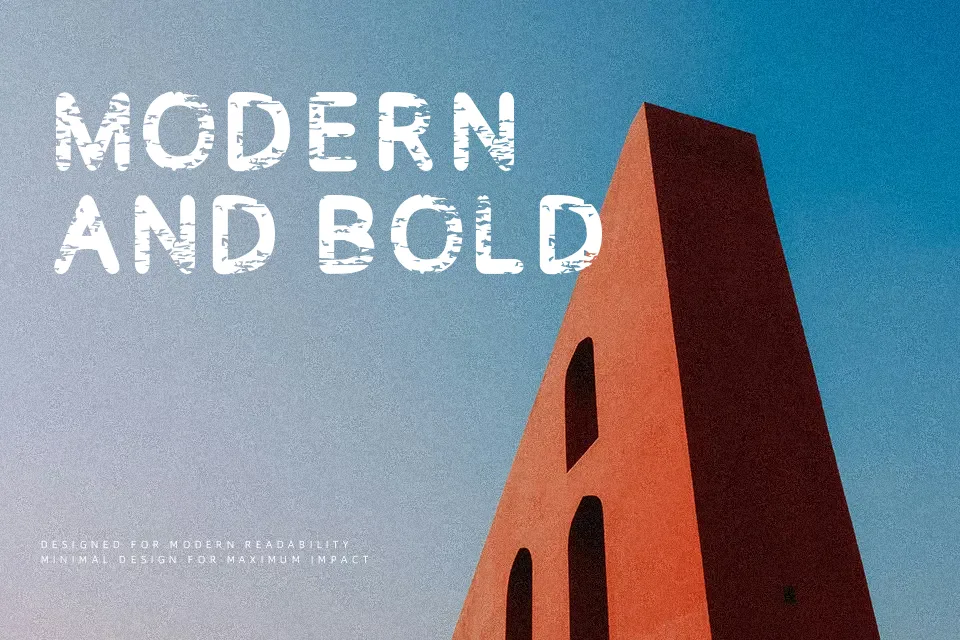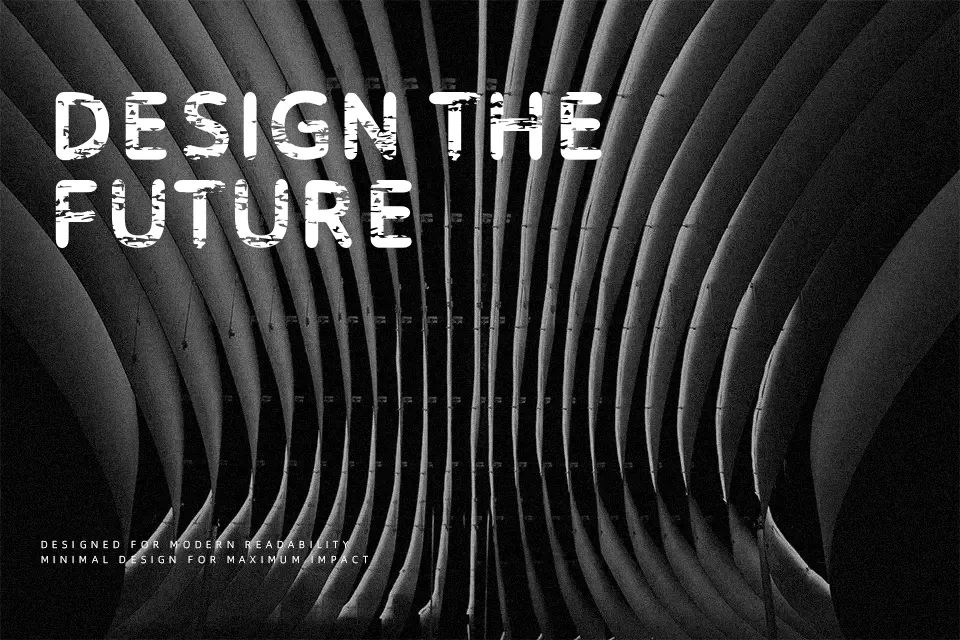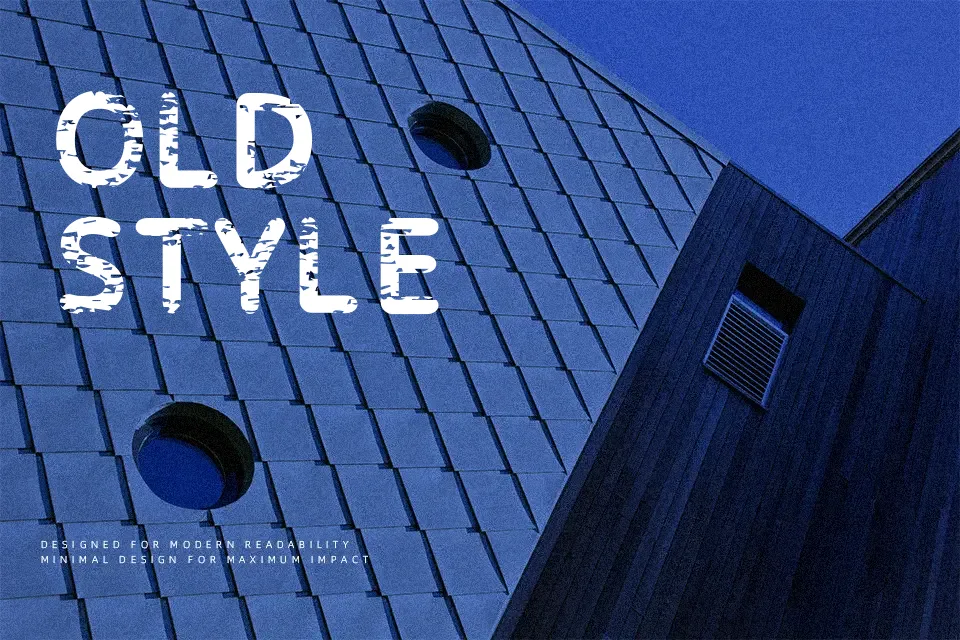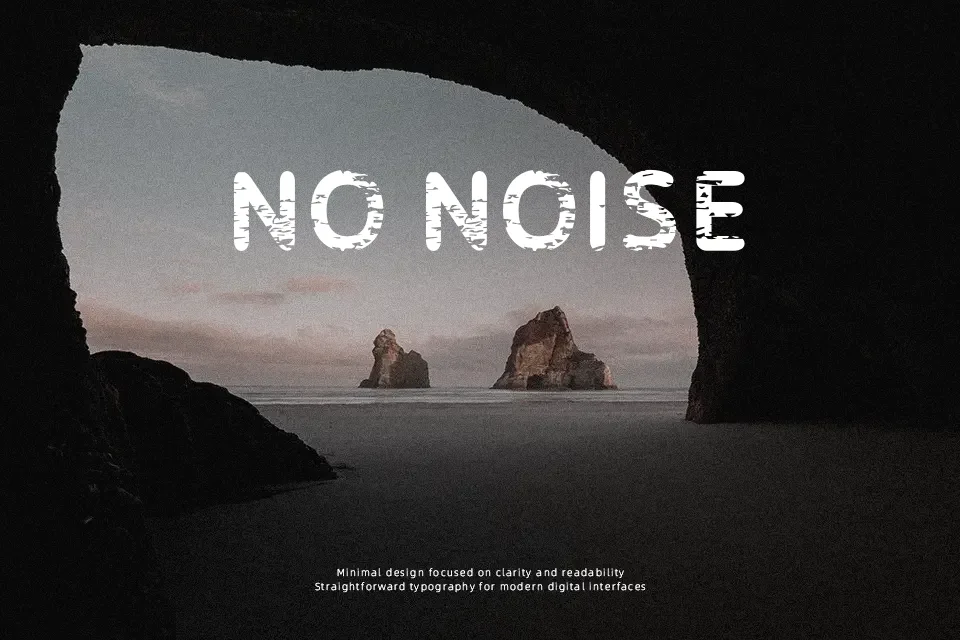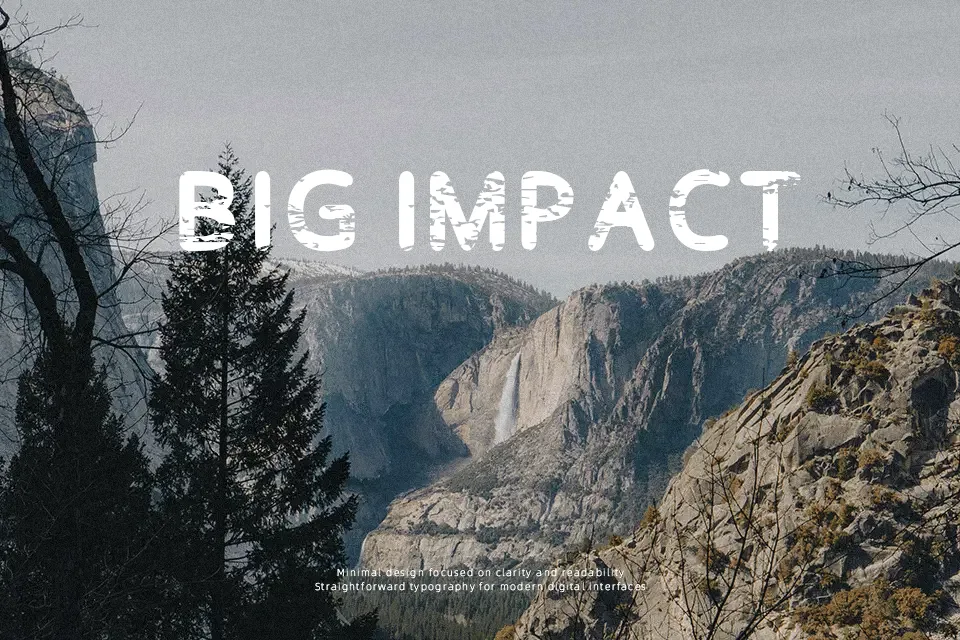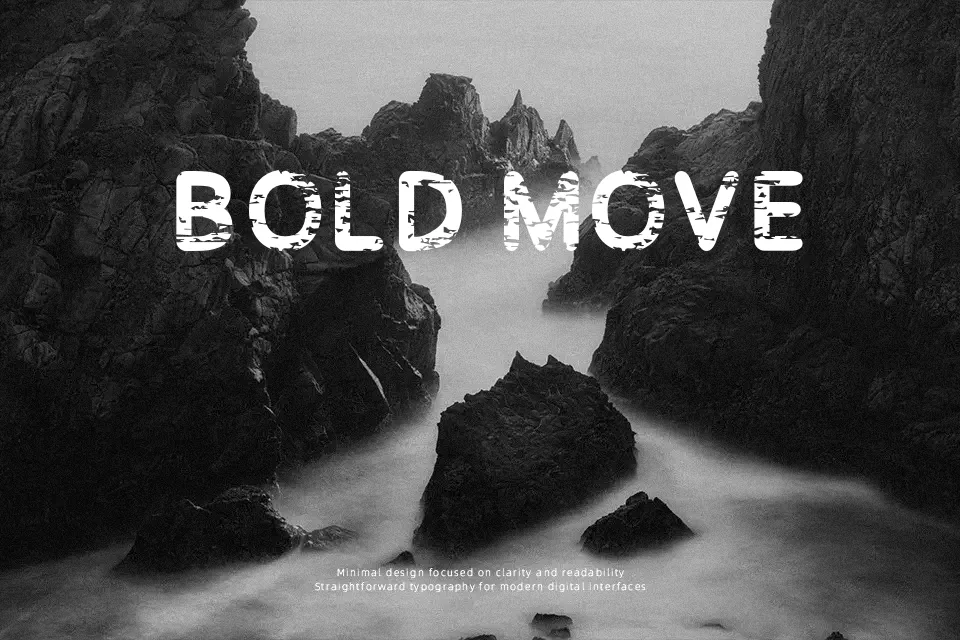
Baston Font
Designed by Iordanis Passas
The defining quality of Baston lies in its weathered texture — every stroke carries a distressed, grunge-worn finish that mimics carved wood or eroded signage. Letters maintain consistent weight with rounded edges, but the surface is deliberately rough, creating visual tension between structural uniformity and textural chaos. This all-caps display font works powerfully when scale is generous: concert posters, craft brewery labels, skateboard graphics, or indie film titles where the worn aesthetic reinforces the brand’s rebellious or artisanal positioning. It supports both Latin and Greek character sets. However, the heavy distressing that makes Baston compelling at display sizes becomes problematic in body copy or UI elements — legibility drops sharply below 24pt, and the texture overwhelms rather than enhances. It’s not suited for projects requiring polish or precision, such as tech branding or formal event materials. Baston thrives when imperfection is the point.
– concert and event posters with alternative themes
– craft product labels and artisan packaging
– vintage-style album covers
– skateboard or streetwear graphics
– body text or paragraphs
– small print applications under 24pt
– corporate or professional materials
– refined or minimalist branding
Perfect for branding, logo, and music, with a bold and decorative style.